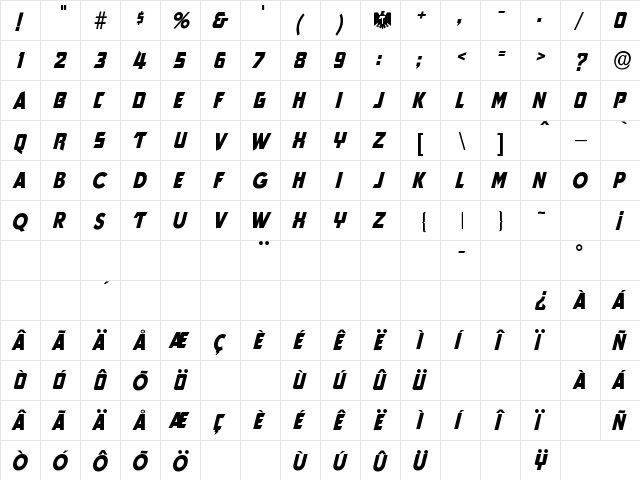
Tecate Regular
Design Context for Tecate Typeface
Tecate takes a measured approach to typography — its balanced proportions and neutral character make it a reliable workhorse for both digital and print work.